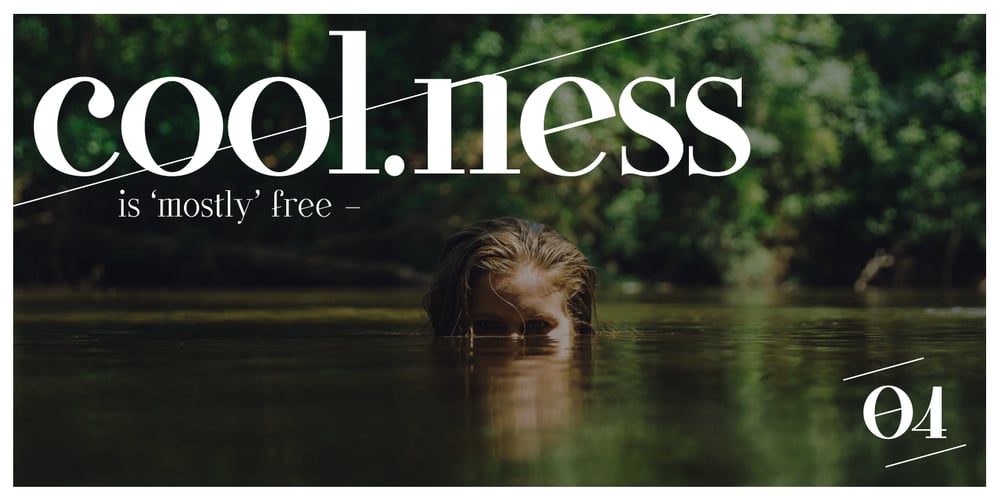
GL Parla Font Family was designed by Germán León and published by Fontbilisi. GL Parla contains 12 styles and family package options. Parla is a popular town in the Southern Madrid. Once I made a promise to a friend and now it is fulfilled by this naming. ‘Parla’ also means ‘talk’ in Italian, so I considered a perfect name for a so fashionable and full of personality typeface. It’s clearly a display font, but as you can check in these lines, it also works nicely (in both weights) for quite small sizes. It’s great to be used in fashion, travel, design and trends projects. It’s packed with all kind of accents and special extended-latin characters and some ligatures as well. You should give it a chance, since it will be very trendy soon -probably-.